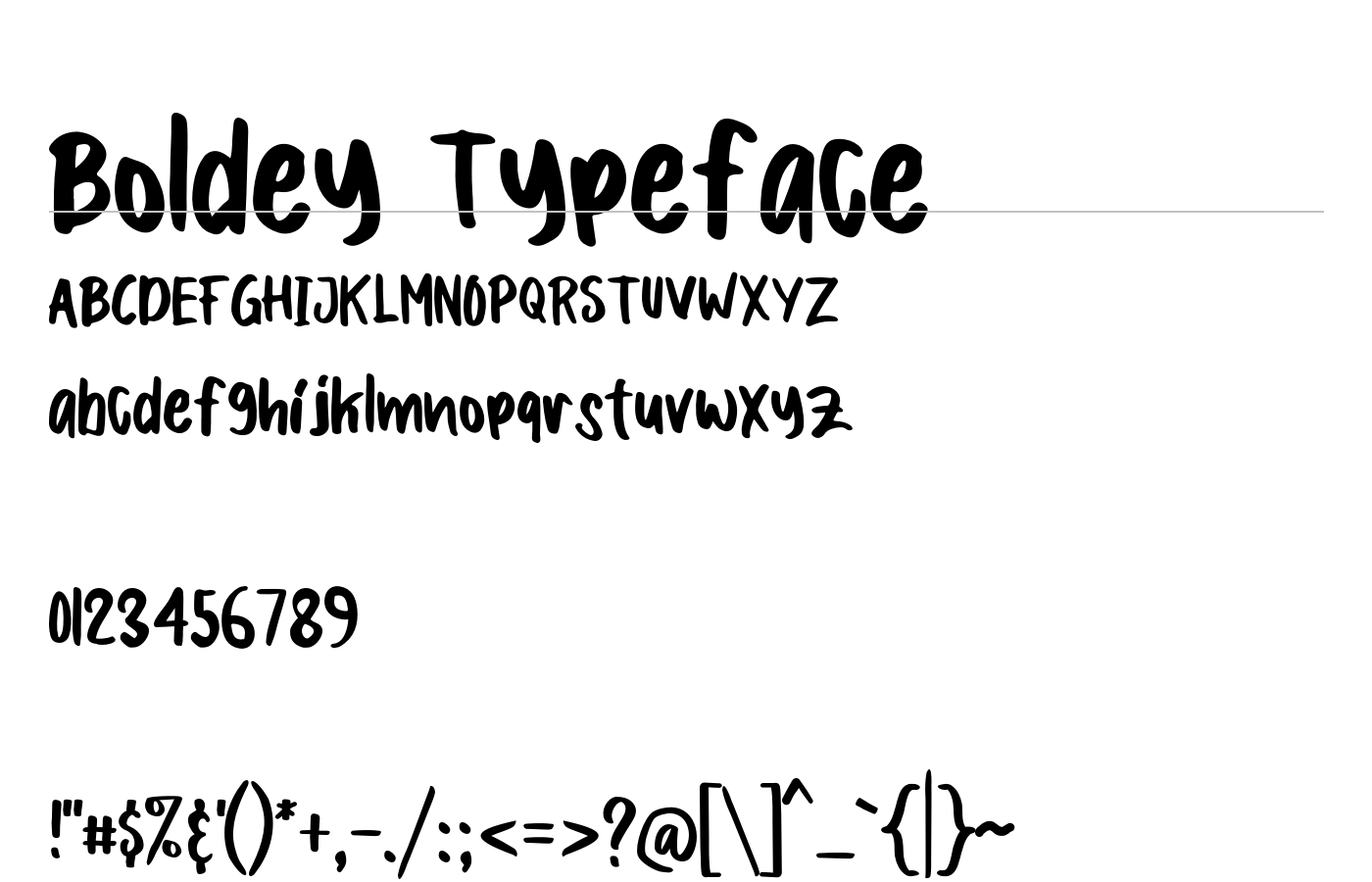
Boldey Typeface is a playful, handwritten sans serif font featuring a bold, rounded stroke style with a casual and friendly vibe. Its irregular letterforms, moderate contrast, and lively character shapes make it ideal for creative projects, informal branding, and designs that seek a warm, approachable look. This font works especially well in headlines, logos, and packaging where personality and spontaneity are key.
Boldey Typeface Font